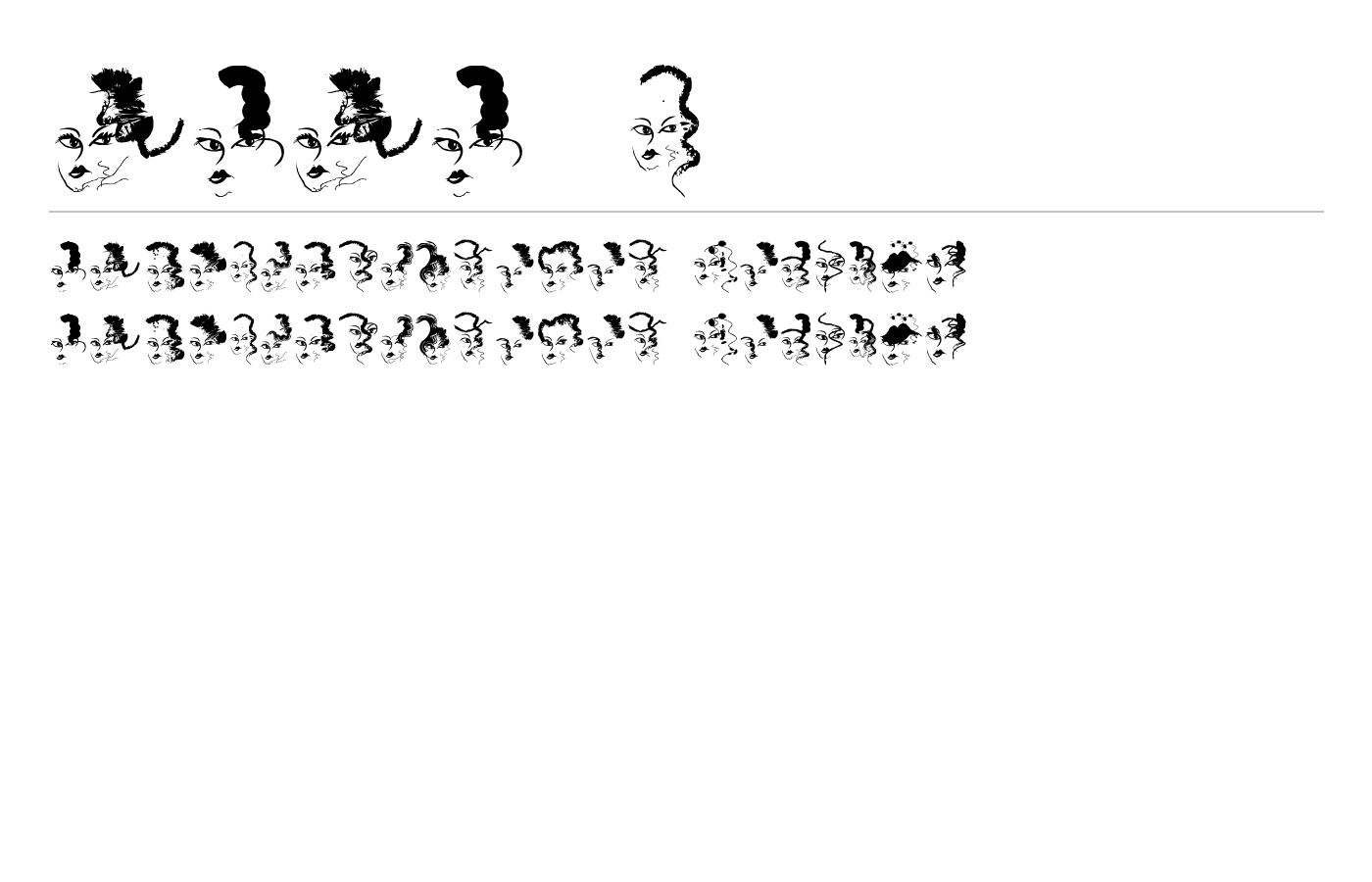
Babaye Font is an artistic and highly decorative display typeface featuring abstract, expressive faces integrated into each character, creating a unique and playful visual experience. Its intricate, hand-drawn style makes it ideal for creative projects, branding, or artistic headlines where personality and flair are desired over traditional readability. This font suits fashion, art, and editorial use, adding a bold, avant-garde touch to designs that seek to stand out.
Babaye Font
About Babaye Font
| Font family | Babaye Font |